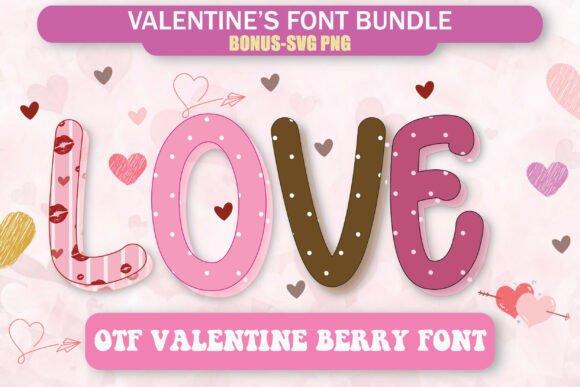
The Sweetest Font Bundle for Your Valentine’s Day Projects: Berry Valentine’s Bundle Font
Ah, Valentine’s Day is just around the corner, and I’m sure many of you are scrambling to create adorable designs for your clients, social media, or personal projects. I recently found myself in a similar situation, searching for the perfect font to add a touch of sweetness to my designs. That’s when I stumbled upon the Berry Valentine’s Bundle Font, and I just had to share it with you all! 🍓
A Personal Design Moment: The Struggle is Real
I was working on a Valentine’s Day-themed sticker sheet for a client, and I just couldn’t find the right font to match the playful, whimsical vibe I was going for. I scoured the internet, tried out a gazillion fonts, but nothing seemed quite right. That was until I discovered the Berry Valentine’s Bundle Font. It’s a game-changer, trust me! 🎉
What’s in the Berry Valentine’s Bundle Font?
The Berry Valentine’s Bundle Font is a collection of four cute and playful alphabet fonts, each with its own unique personality. These fonts are inspired by soft colors and fun patterns, making them perfect for a variety of design projects, such as:
• ✨ Four unique fonts in one bundle, each with its own character
• 🎉 Fun, playful, and whimsical designs perfect for Valentine’s Day and beyond
The Berry Valentine’s Bundle Font was inspired by the designer’s love for soft colors, fun patterns, and all things sweet. Imagine a world where Valentine’s Day is celebrated every day, and you’re surrounded by cute, playful designs that make you smile. That’s the world the designer aimed to create with this font bundle.